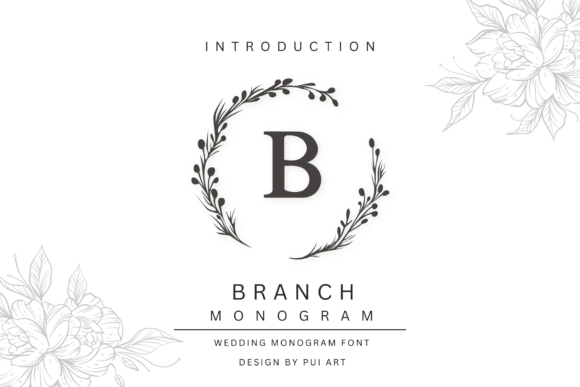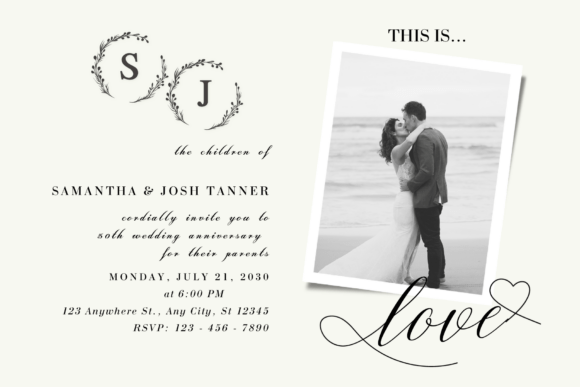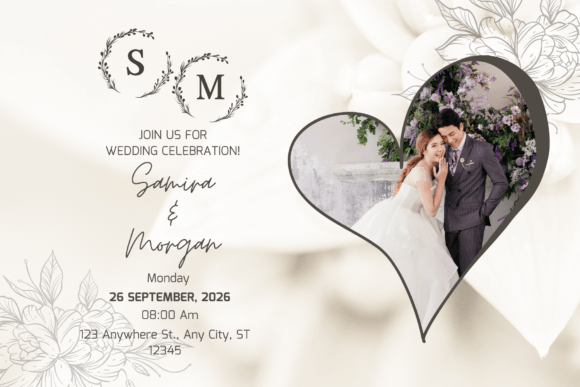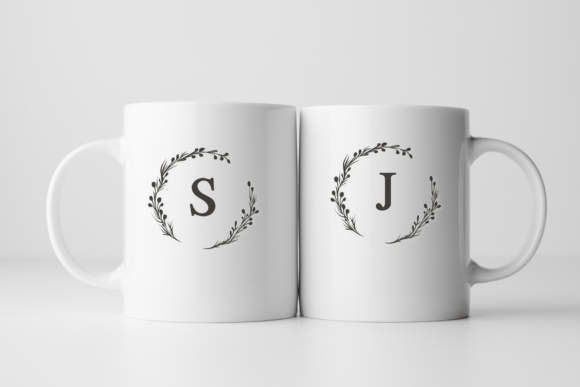
Branch Monogram Font
About the Branch Monogram Font
Experience the unique personality of Branch Monogram Font, a font designed for impact. Branch Monogram is an elegant font designed for special occasions. It features decorative letters inside a beautiful leaf frame, making it perfect for invitations and wedding cards. This font adds a touch of charm and sophistication to any celebration!
Branch Monogram’s elegant, decorative style is ideally suited for projects requiring a touch of refined charm. It excels in applications like wedding stationery, luxury branding, and high-end product packaging where its intricate detail can be appreciated. Use it for headlines, short quotes, or logos—avoiding large blocks of text or body copy. Its ornate nature makes it unsuitable for UI elements or lengthy paragraphs.
Pairing Branch Monogram with a clean sans-serif like Lato or Open Sans provides a strong contrast, allowing the decorative elements to stand out. For a more traditional feel, a classic serif such as Garamond or Georgia would complement its sophisticated personality. Avoid pairing it with other highly decorative fonts, as this could lead to visual clutter.
The font projects a feeling of sophisticated elegance and timeless grace, making it perfect for brands associated with luxury, tradition, or special events. Its delicate balance of ornamentation and readability ensures it remains refined without being overly fussy.
Branch Monogram Font Usage Examples
Branch Monogram Font Example